Looking to add that authentic vintage stamp feel to your designs?
Whether you’re creating postal-themed graphics, retro branding, or just want that classic stamped aesthetic, Canva has you covered with these fantastic fonts.
They perfectly mimic the look of traditional stamps adding that much desired quintessential look to your creations.
Take a look and get started with your next project.
Why Use Stamp-Style Fonts?
Stamp fonts evoke feelings of nostalgia, authenticity, and official documentation.
They’re perfect for travel blogs, vintage designs, certificates, badges, and any project where you want to convey a sense of history or authority.
The beauty of these fonts lies in their imperfect, weathered appearance that mimics the ink impressions of actual rubber stamps.
1. Chunk Five
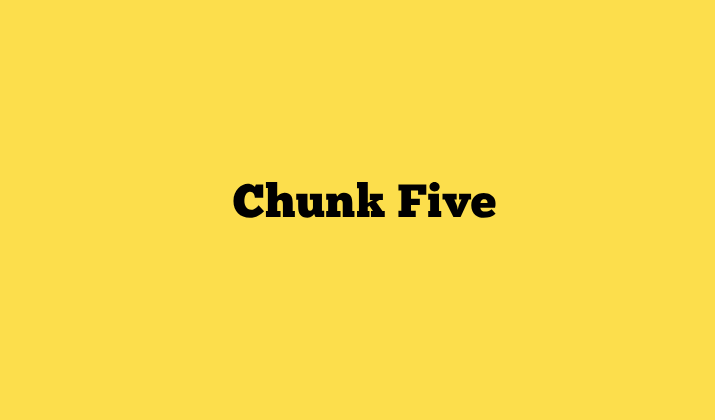
This bold, blocky font captures the essence of rubber stamp lettering perfectly.
Its slightly irregular edges and solid weight make it ideal for creating eye-catching headers and stamps that demand attention.
The condensed letterforms pack a punch while maintaining excellent readability.
Best for: Headlines, badges, warning labels, and bold statements
2. Bebas Neue
A versatile condensed sans-serif that works beautifully for stamp-style designs.
Its tall, narrow letters create that classic stamped look, especially when paired with decorative borders or distressed effects.
The clean lines make it perfect for modern stamp interpretations.
Best for: Title stamps, official-looking documents, and contemporary designs
3. Staatliches
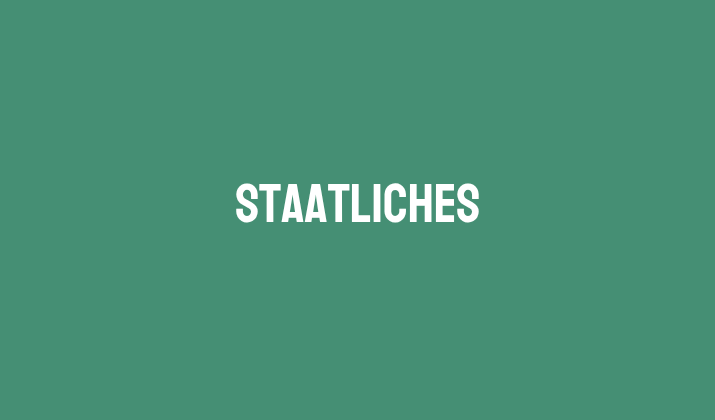
This compressed display font was designed for official documents and signage, making it naturally perfect for stamp designs.
Its institutional feel and narrow width create that authentic bureaucratic stamp appearance that’s perfect for official-looking designs.
Best for: Government stamps, official documentation, and authoritative badges
4. Oswald
Inspired by classic American typography, Oswald brings that authoritative stamp feeling to your designs. Its medium weight and slightly condensed proportions make it excellent for creating official-looking stamps and badges. The font maintains clarity even at smaller sizes.
Best for: Official stamps, certificates, and government-style documentation
5. Roboto Condensed
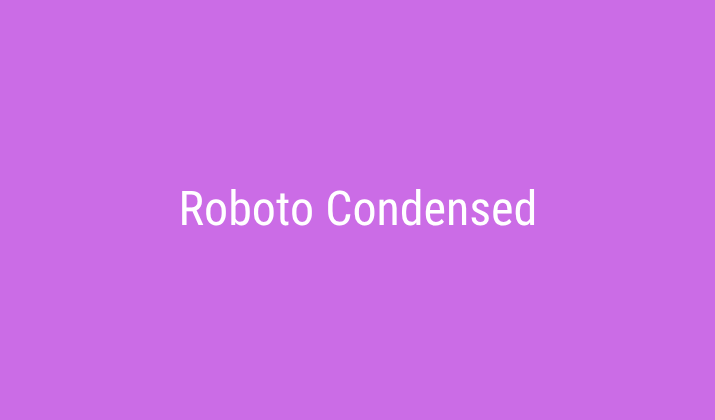
This geometric sans-serif offers a clean, modern take on stamp typography.
Its condensed width allows for more text in smaller spaces, making it perfect for detailed stamp designs.
The font’s technical precision gives it an official, processed appearance.
Best for: Postal codes, technical stamps, and detailed information stamps
6. Anton
A bold, condensed font that screams vintage advertising and stamp design.
Anton’s heavy weight and slightly compressed letters create instant impact, making it perfect for stamps that need to stand out.
Its industrial feel works great for retro-themed projects.
Best for: Vintage stamps, advertising badges, and bold declarations
7. Fredoka One
While rounder than traditional stamp fonts, Fredoka One’s bold weight and friendly appearance make it perfect for playful stamp designs.
Its slightly irregular curves give it that hand-stamped feel, making it ideal for casual or child-friendly projects.
Best for: Fun stamps, children’s projects, and casual branding
8. Impact
A bold, condensed font that’s synonymous with authoritative text and official statements.
Its extremely heavy weight and narrow letterforms create that perfect stamped impression.
Impact’s strong presence makes it ideal for stamps that need to convey importance and urgency.
Best for: Warning stamps, important notices, and high-impact official seals
9. Montserrat
A geometric sans-serif with a clean, professional appearance that works excellently for modern stamp designs.
Its versatility and range of weights make it perfect for creating both subtle and bold stamp effects.
The font’s urban inspiration gives it a contemporary official feel.
Best for: Modern certificates, professional badges, and contemporary official stamps
10. Archivo Black
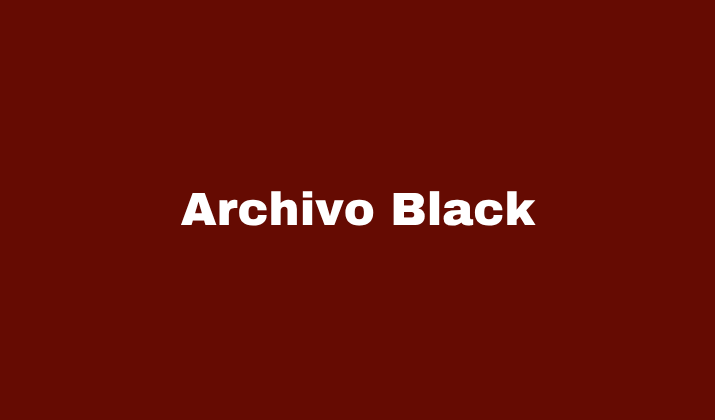
An ultra-bold display font that delivers maximum impact for stamp designs.
Its heavy weight and slightly condensed proportions create that authentic rubber stamp impression.
The font’s industrial strength makes it perfect for stamps that need to command attention and respect.
Conclusion
These ten free Canva fonts offer endless possibilities for creating authentic-looking stamp designs.
The key to great stamp typography is choosing fonts that feel substantial and authoritative while maintaining excellent readability.
Start experimenting with these fonts in your next Canva project, and don’t forget to play with colors, textures, and effects to create truly authentic stamp designs that capture attention and convey your message with authority.